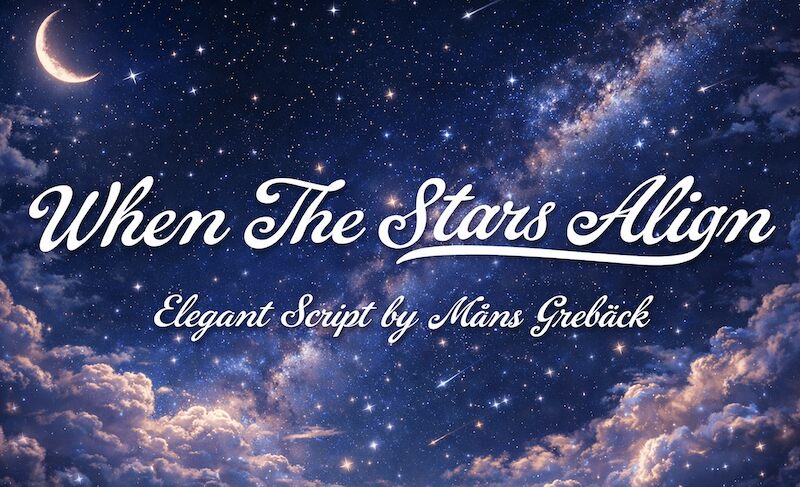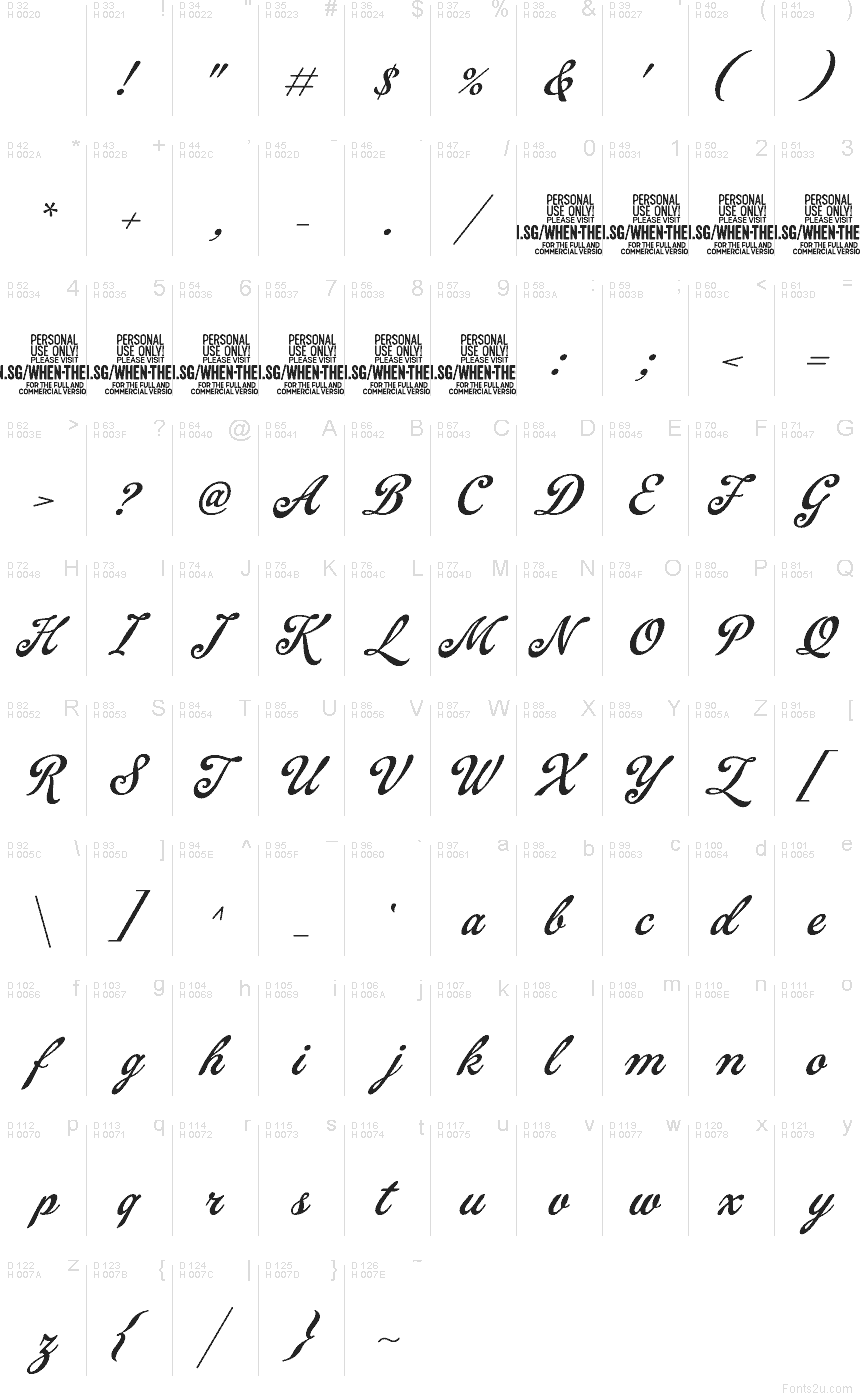
When The Stars Align font by Mans Greback is a free handwritten script typeface with a soft, romantic glow. Its strokes sweep gently from letter to letter, forming silky, unbroken lines that feel both graceful and easy to read. The curves are polished rather than showy, giving the script a poised, intentional look that feels at home on anything delicate, dreamy, or heartfelt.
Using When The Stars Align, you can bring a refined warmth to wedding invitations, save‑the‑date cards, boutique branding, packaging, greeting cards, and quote graphics. This free font shines when set a bit larger, letting the flowing connections breathe. Pair it with a clean sans serif for body text to keep your layouts airy and modern while the script carries the emotion.